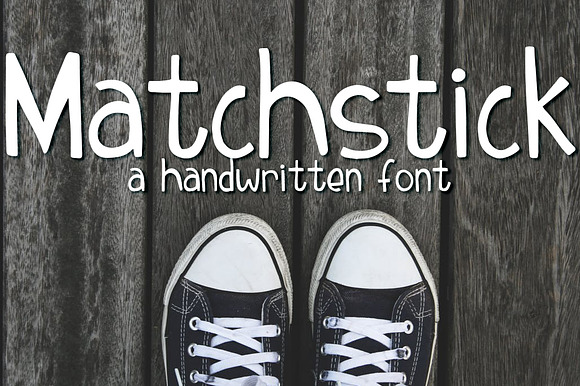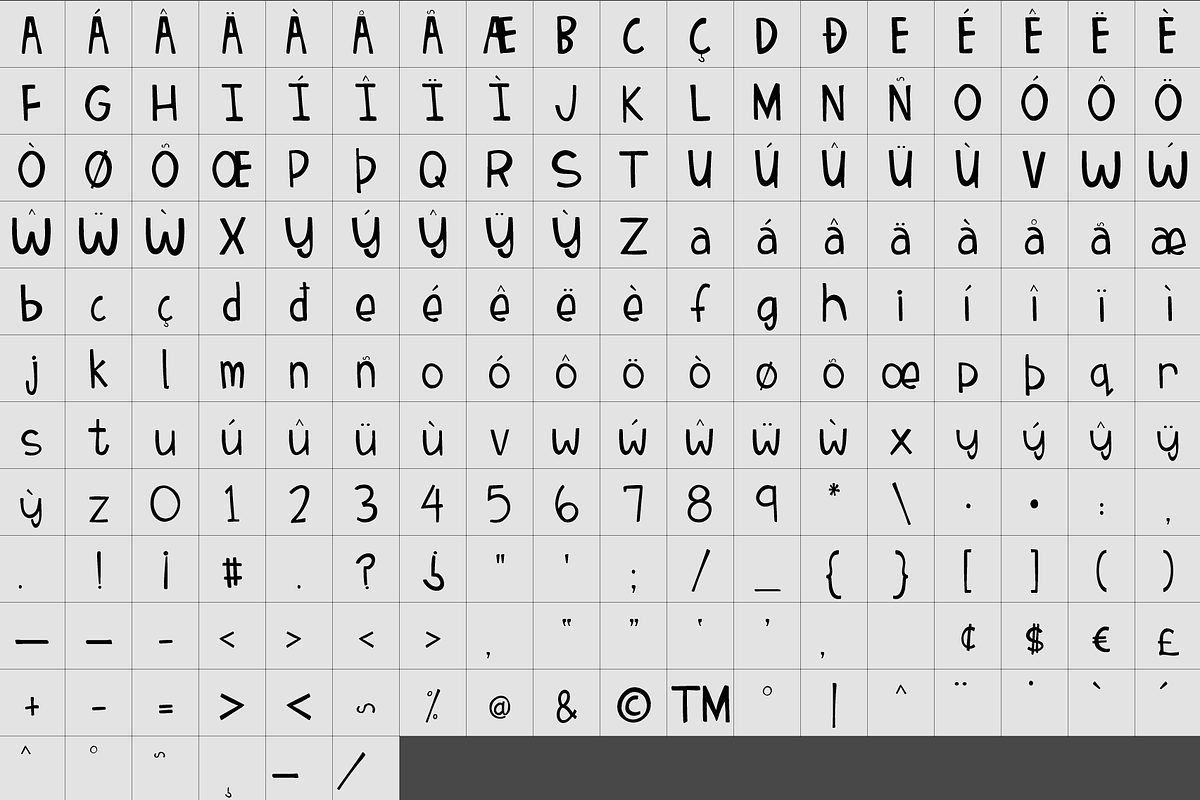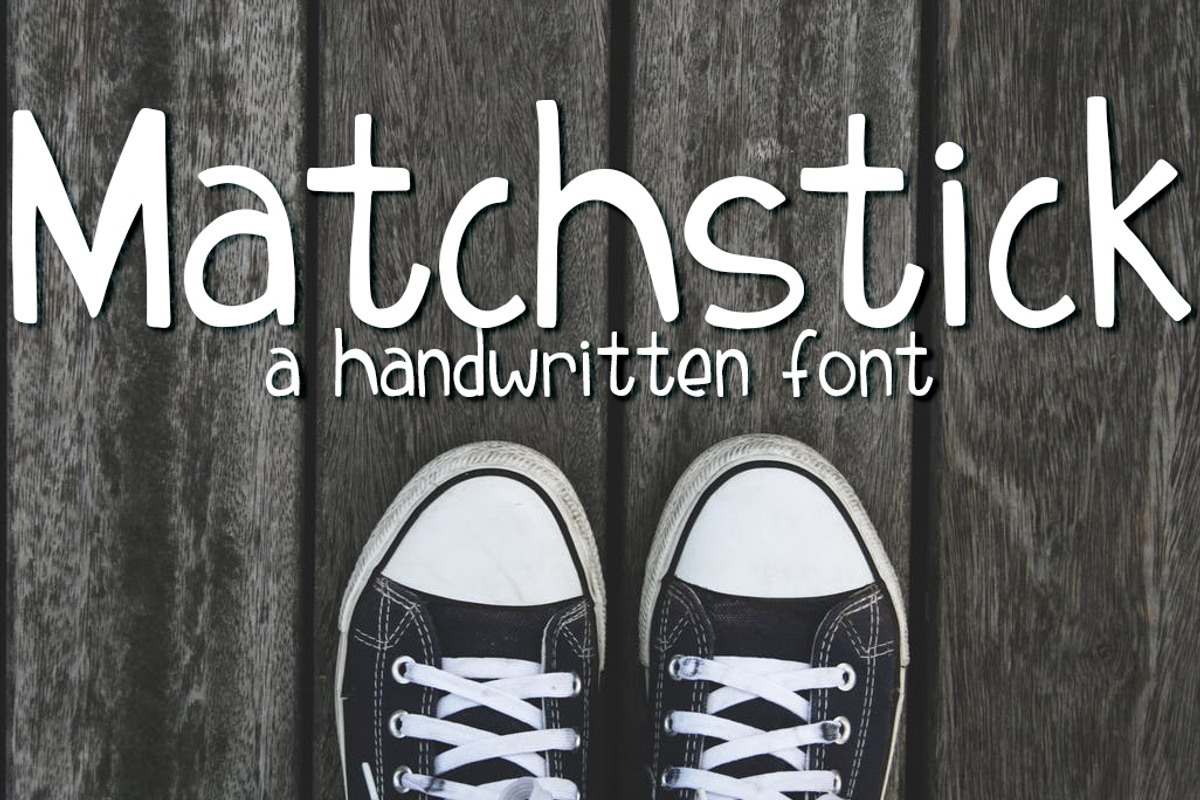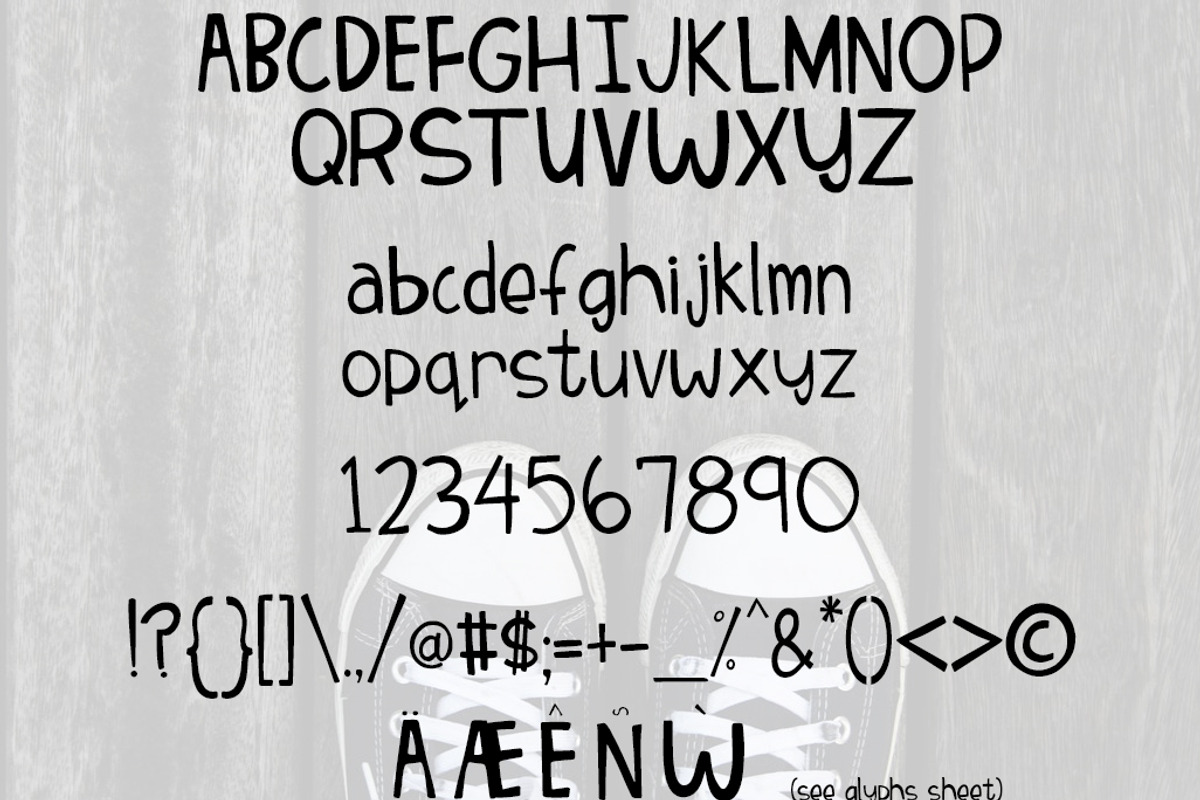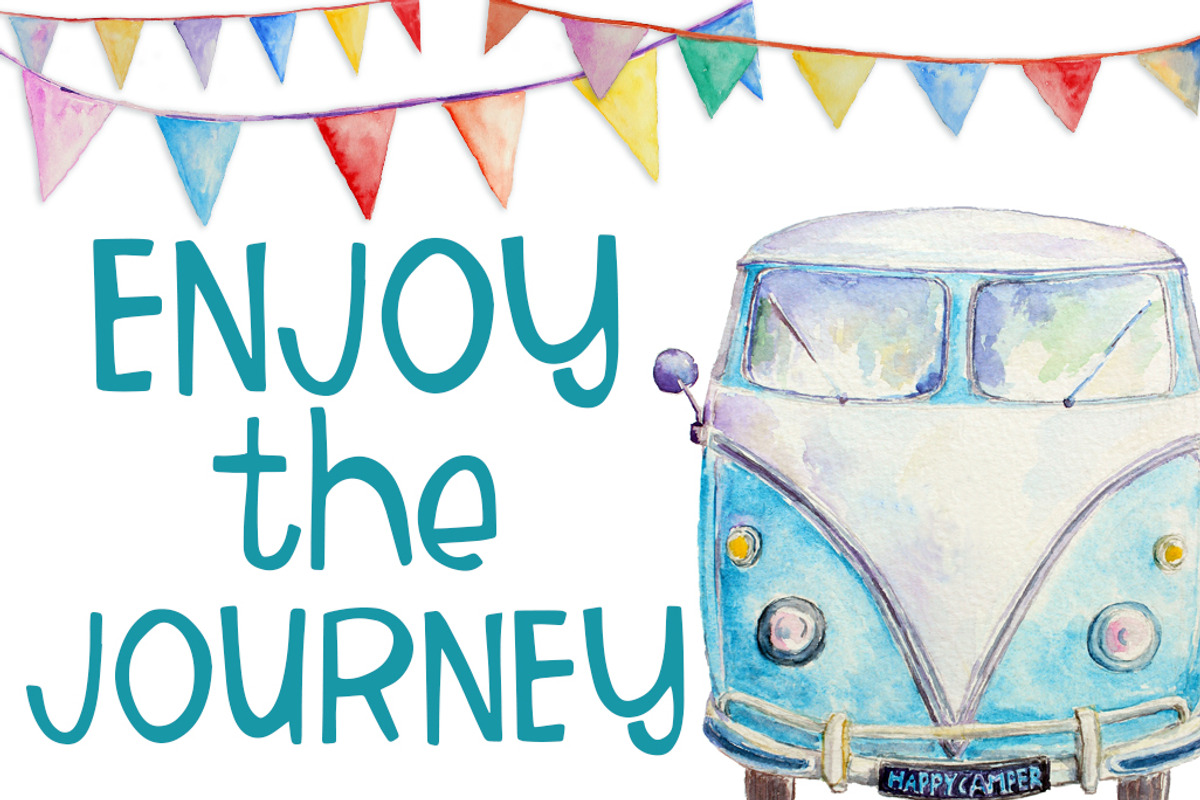
Matchstick Font
Inspired by my passion for hand-lettering, Matchstick is a quirky and fun font that looks great on greeting cards, amazing on t-shirts, perfect on mugs and combines seamlessly on just about any hand lettered project that comes your way.